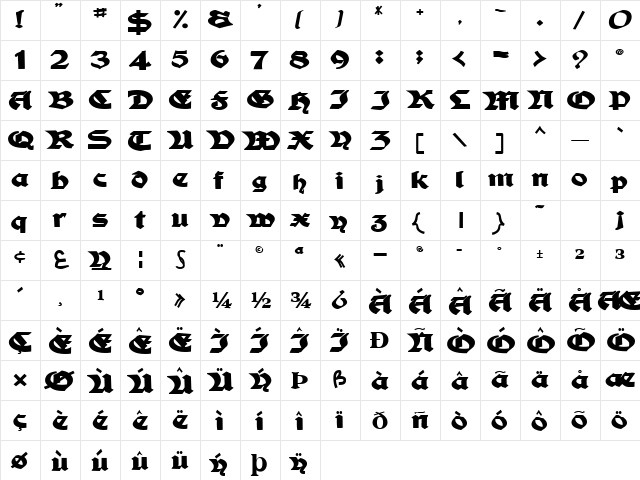
JohnsonText103 Bold
Design Context for JohnsonText103 Typeface
JohnsonText103 is a composed and adaptable typeface that performs quietly and consistently across a wide range of design contexts. Its bold stroke weight gives it real presence on the page.